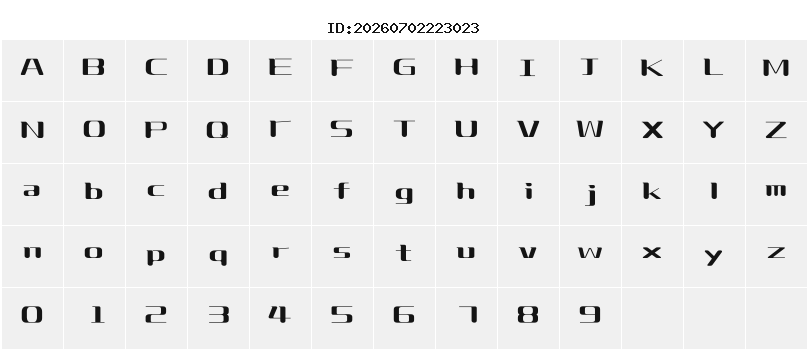
275-上首招福体 Preview
• Font Name: 275-上首招福体
• Full Font Name: 275-上首招福体
About 275-上首招福体.ttf
275-上首招福体.ttf is a modern, elegant sans-serif font designed for ultimate readability and visual harmony. Perfect for branding, headlines, web design, and print materials.